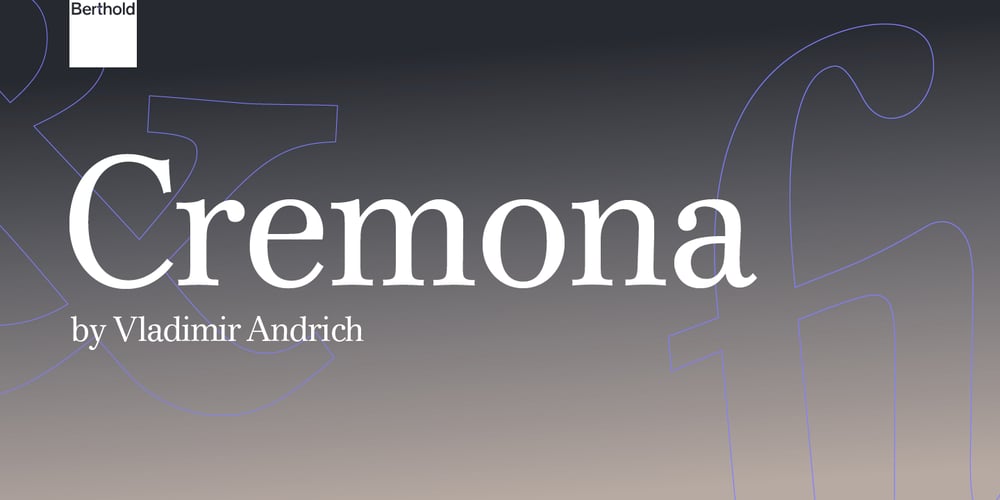
Cremona Font Family was designed by Vladimir Andrich and published by Berthold. Cremona contains 4 styles and family package options. Vladimir Andrich’s 1982 type design Cremona was created for the Alphatype Corporation which was later purchased by H. Berthold AG. His design, well-suited for large bodies of text, then became part of the Berthold Exklusiv Collection.